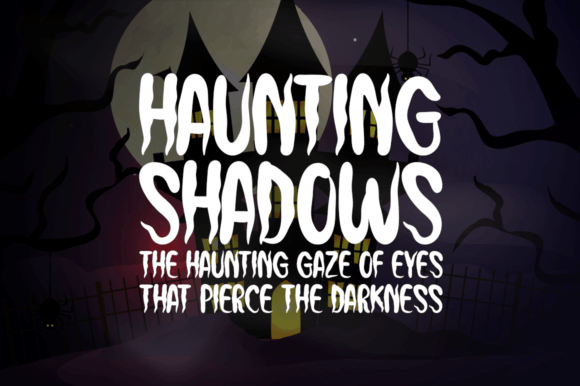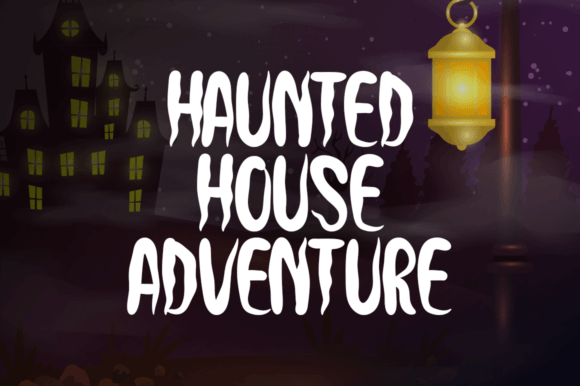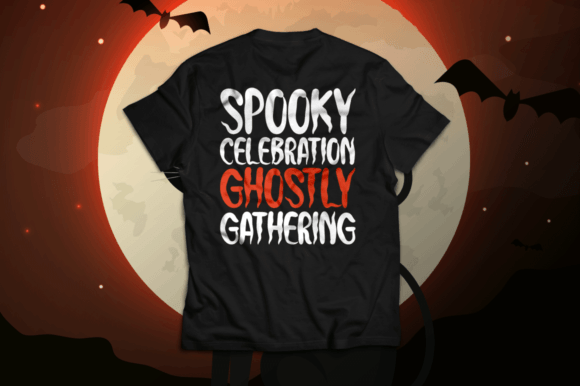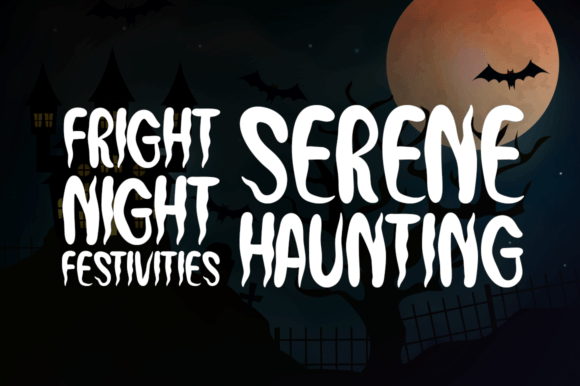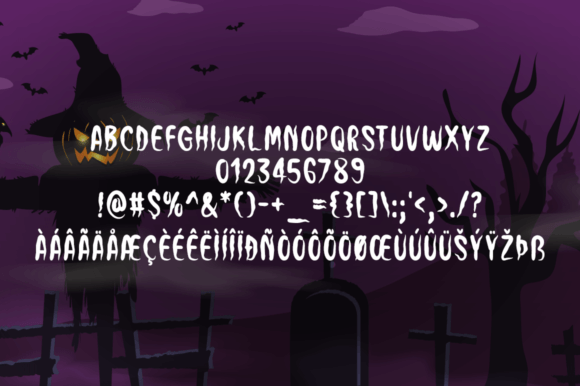
Unleash the Spooky Charm with Haunting Font: Elevate Your Designs with a Visually Stunning Typeface
Are you a designer or crafter looking for a unique and captivating font to add a touch of eeriness to your creative projects? Look no further than Haunting Font, a meticulously crafted display typeface designed to elevate a wide range of applications. From haunting flyers and photo frames to spellbinding music covers and posters, Haunting Font is the perfect choice for those seeking to infuse their designs with a sense of mystery and intrigue.
What is Haunting Font?
Haunting Font is a distinctive and visually stunning display typeface that has been carefully created to make a lasting impression. Its unique design elements and intricate details make it an ideal choice for designers and crafters seeking to add a touch of the unknown to their work. Whether you’re looking to create eye-catching logos, t-shirt designs, or stationery, Haunting Font is the perfect tool to help you stand out from the crowd.
Key Features of Haunting Font
- Unique Design: Haunting Font boasts a one-of-a-kind design that is sure to capture attention and leave a lasting impression.
- Visually Stunning: With its intricate details and distinctive style, Haunting Font is a feast for the eyes.
- Versatile: Haunting Font can be used across a wide range of creative applications, including flyers, photo frames, music covers, posters, image sliders, printed media, logos, t-shirt designs, and stationery.
- Ease of Use: Haunting Font is easy to use and can be seamlessly integrated into your design workflow.
Creative Applications of Haunting Font
Haunting Font is an incredibly versatile typeface that can be used in a variety of creative applications. Here are some ideas to get you started:
- Flyers: Create haunting flyers that grab attention and leave a lasting impression.
- Photo Frames: Add a touch of eeriness to your photo frames with Haunting Font.
- Music Covers: Create spellbinding music covers that showcase your artistic style.
- Posters: Design eye-catching posters that demand attention.
- Image Sliders: Add a touch of mystery to your image sliders with Haunting Font.
- Printed Media: Use Haunting Font to create stunning printed media, such as brochures, magazines, and newspapers.
- Logos: Create unique and captivating logos that set your brand apart.
- T-Shirt Designs: Design eye-catching t-shirt designs that make a statement.
- Stationery: Add a touch of elegance and sophistication to your stationery with Haunting Font.
Tips for Using Haunting Font Effectively
To get the most out of Haunting Font, here are some tips to keep in mind:
- Experiment with Different Sizes: Haunting Font looks great in a variety of sizes, so don’t be afraid to experiment and find the perfect size for your design.
- Play with Colors: Haunting Font can be used with a range of colors, so try out different color combinations to find the one that works best for your design.
- Combine with Other Fonts: Haunting Font can be paired with other fonts to create a unique and visually appealing design.
- Use it Sparingly: Haunting Font is a bold and eye-catching typeface, so use it sparingly to avoid overwhelming your design.
Haunting Font is a unique and visually stunning display typeface that is perfect for designers and crafters seeking to add a touch of mystery and intrigue to their creative projects. With its intricate details, distinctive style, and versatility, Haunting Font is an ideal choice for a wide range of applications. By following the tips outlined above, you can use Haunting Font to create stunning designs that leave a lasting impression.